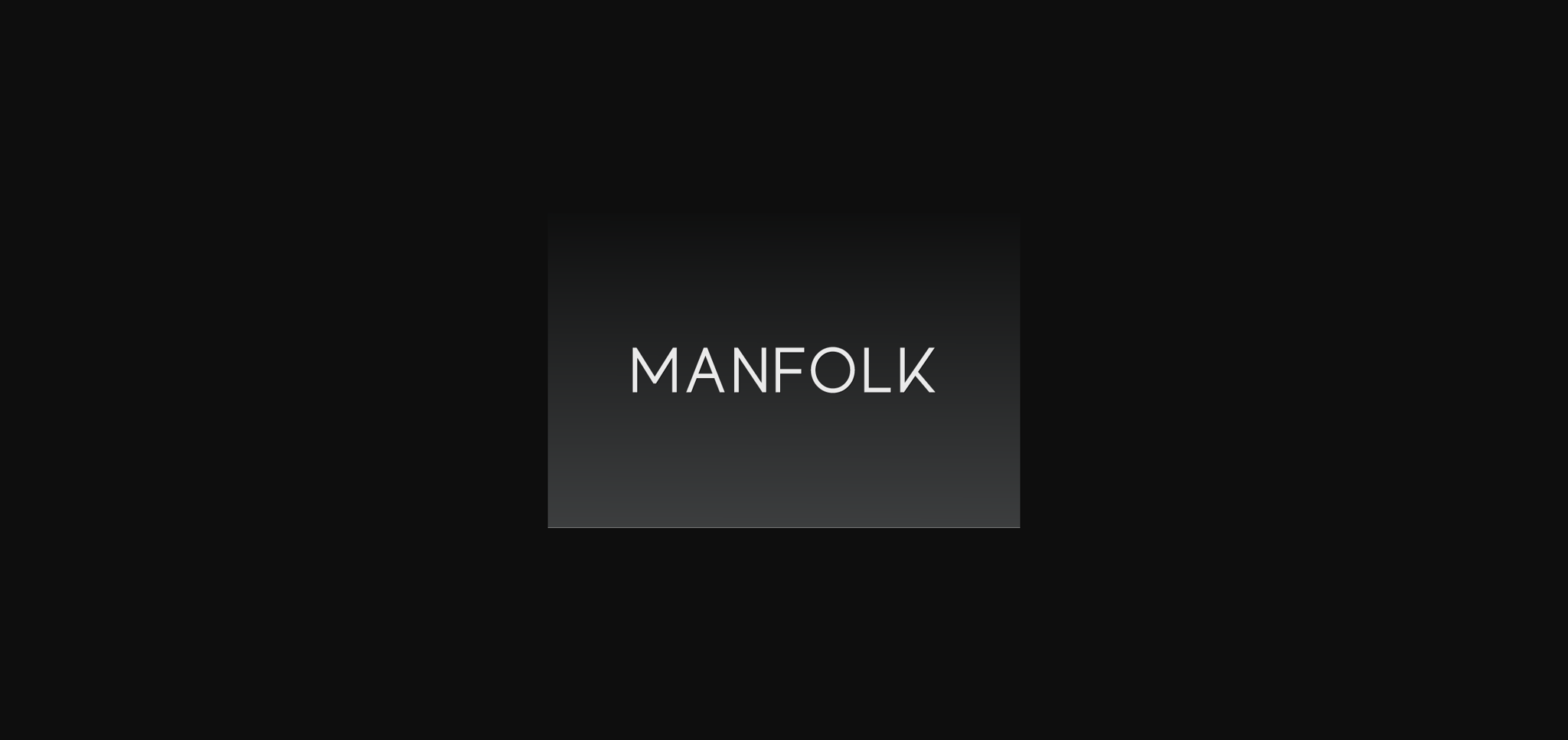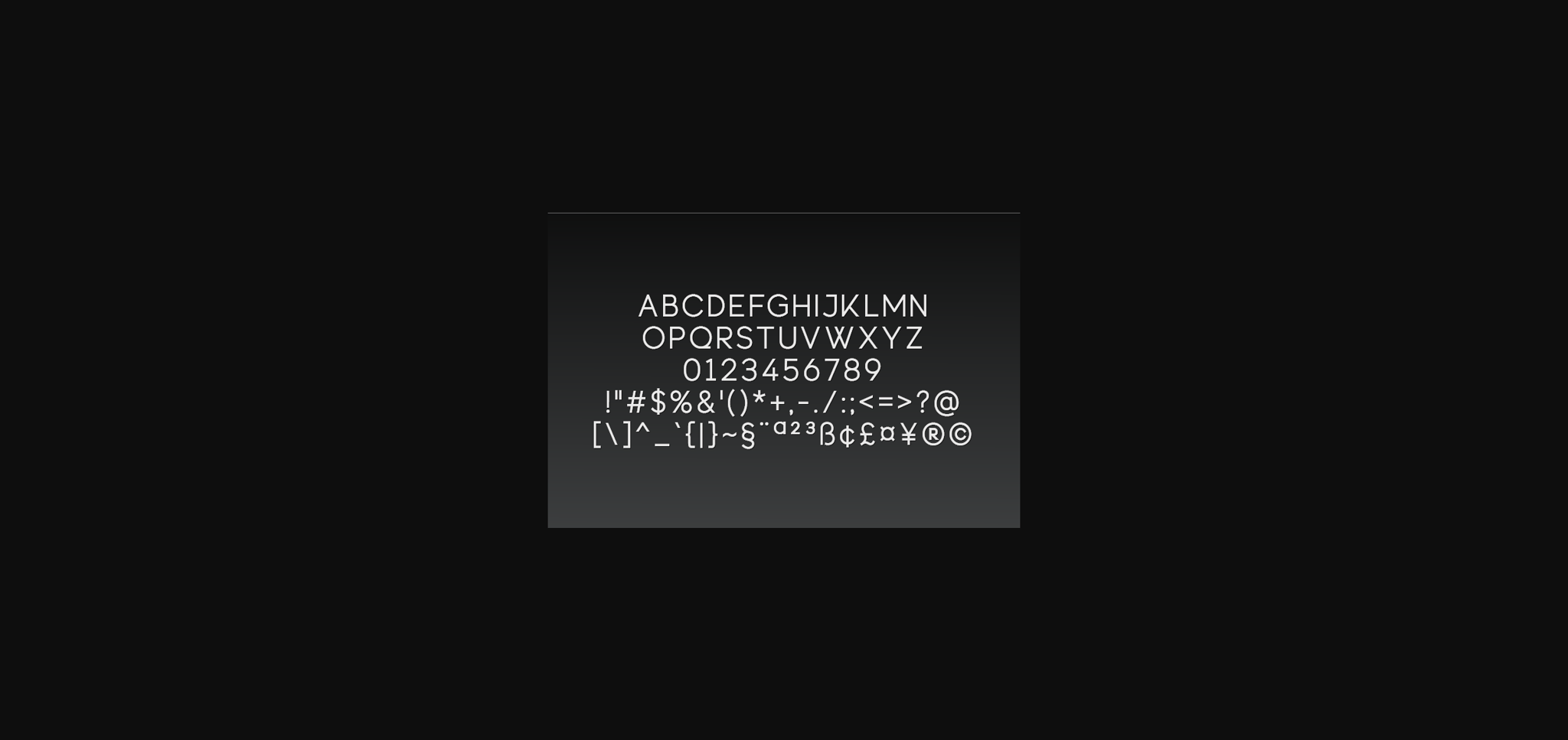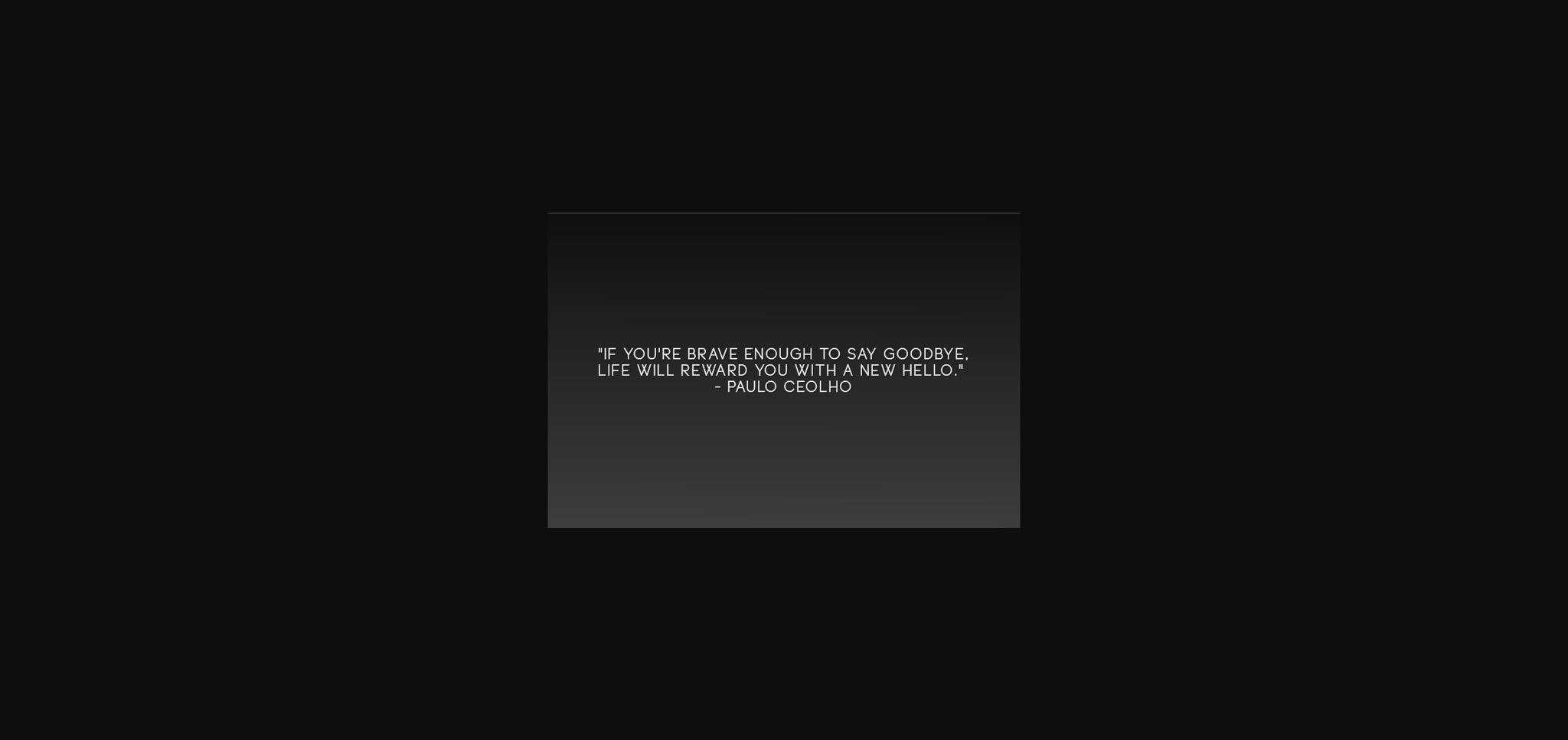
Manfolk Font
About Manfolk Font
Manfolk is a stunning sans serif font to complement every project you’re working on.
Use it to create beautiful headings, gorgeous invitations, stunning logos, and so much more!